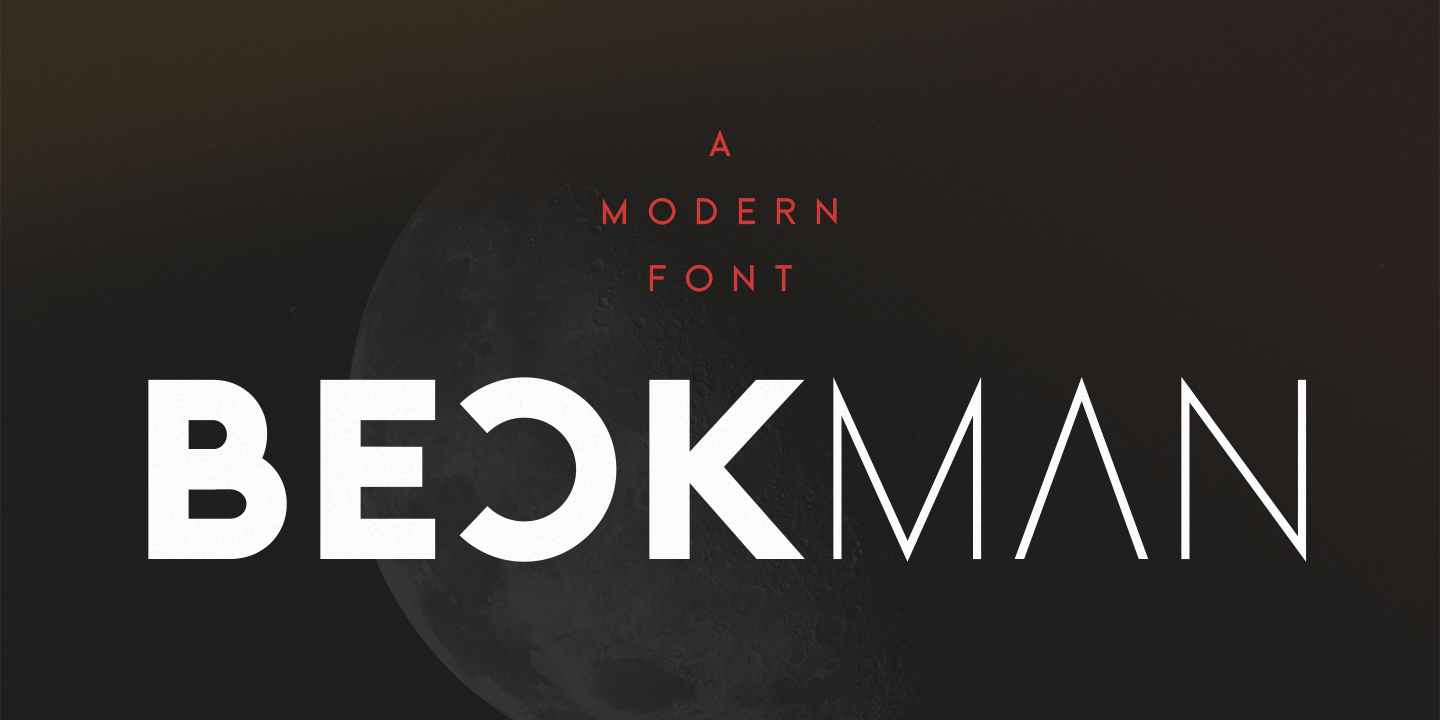
Discover the sleek Benn Beckman Font Free Download, a minimalist sans-serif typeface by Factory738 that blends geometric precision with modern elegance. This font is perfect for creating a clean, contemporary aesthetic. However, please note that you must purchase this font for commercial use. For testing purposes, you can download it for free and explore its versatile style.
The Benn Beckman Font is ideal for various applications, such as designing professional logos, crafting bold headlines, creating modern branding materials, or enhancing posters and magazine layouts. Its clean lines and support for 219 Latin-based languages make it a top choice for global projects needing a polished, futuristic look.
Why is the Benn Beckman Font Free Download so exciting? Its avant-garde design, with subtle wedges and six weights from Light to Black, offers a futuristic yet approachable vibe, perfect for sci-fi-inspired or high-impact designs. The font’s minimalist structure ensures your projects stand out with clarity and sophistication.
The Benn Beckman Font family includes nine styles: Light, Book, Regular, Medium, Heavy, Black, and their respective Italics, providing flexibility for diverse design needs. These variations allow you to experiment with weights and slants, ideal for both print and digital media.